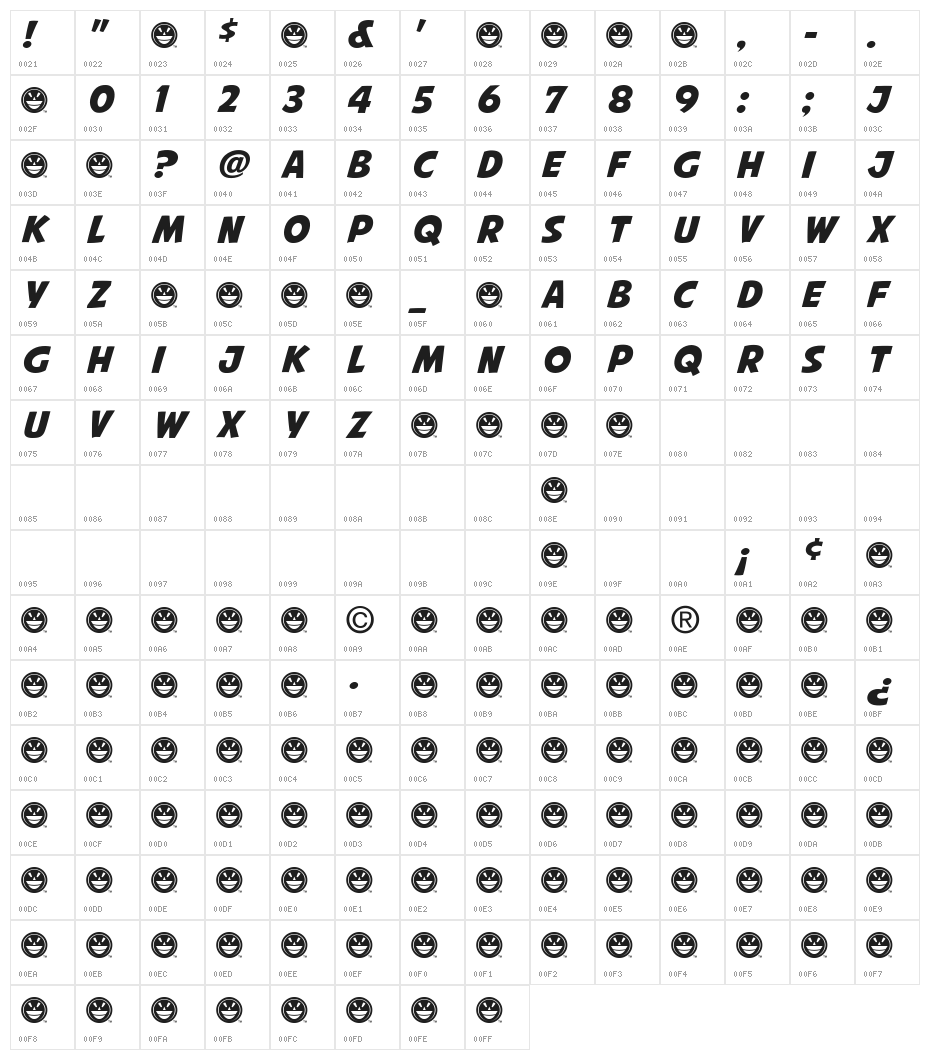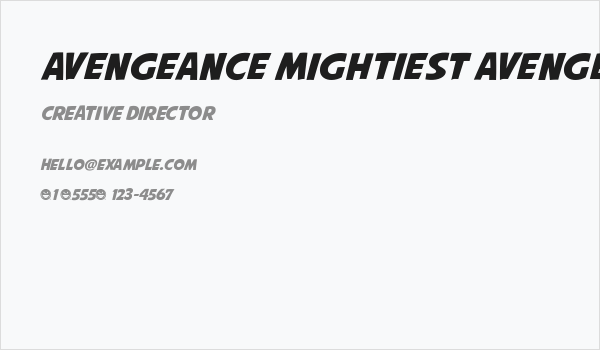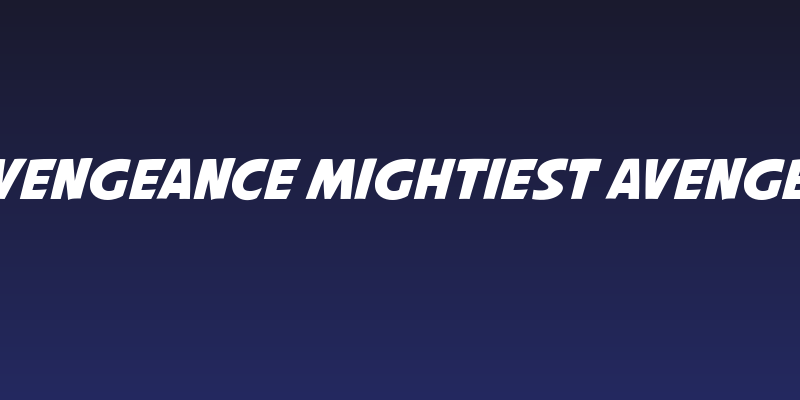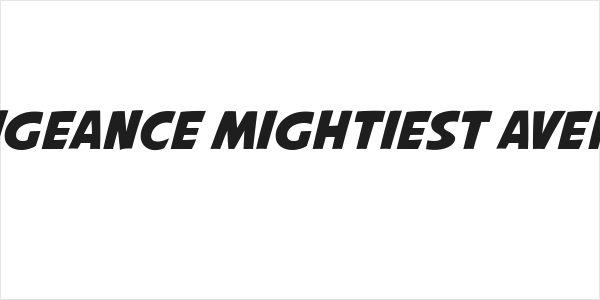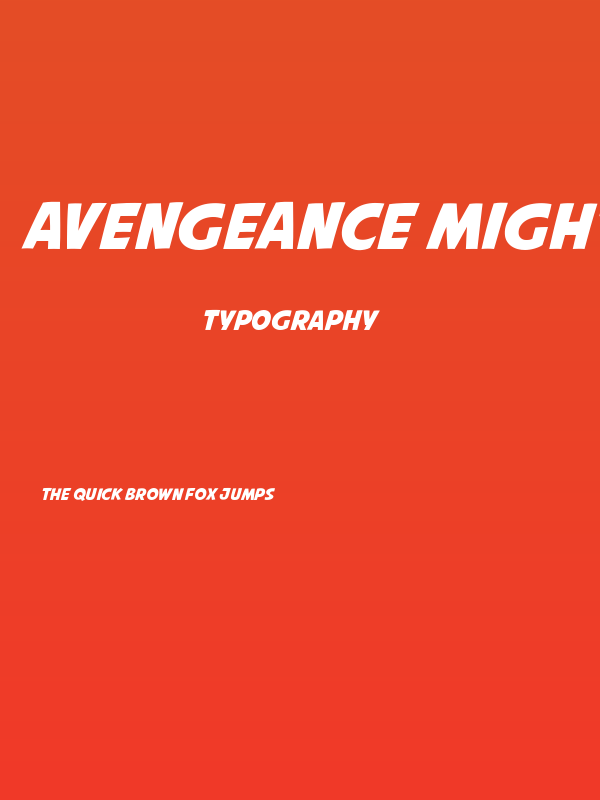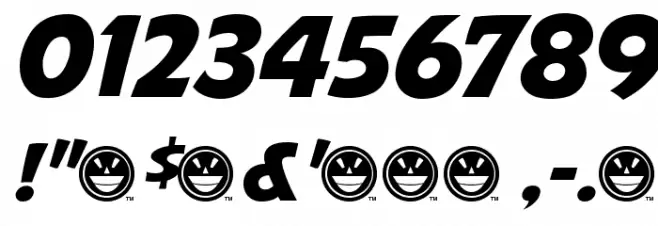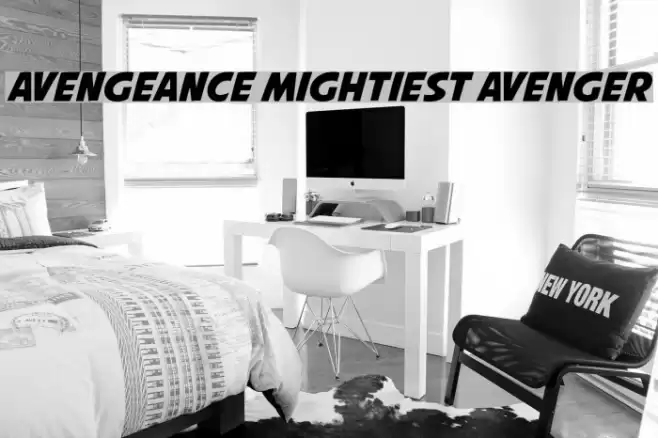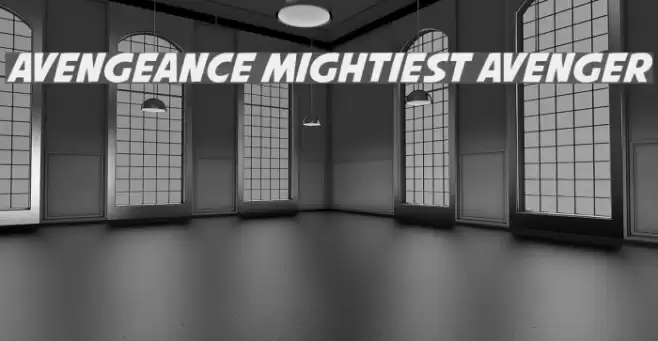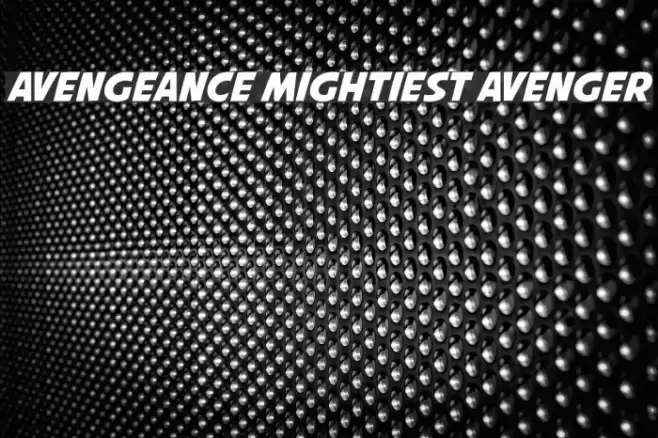
Avengeance Mightiest Avenger Font
Avengeance Mightiest Avenger Description
This font features bold, dynamic letterforms with a strong, impactful presence. The characters are slightly italicized, adding a sense of motion and energy. The strokes are thick and consistent, providing a robust and confident appearance. The uppercase and lowercase letters maintain a uniform style, with smooth curves and sharp angles that enhance readability. The numbers are equally bold, ensuring they stand out in any design. Special characters are included, maintaining the same bold and energetic style. Overall, this font exudes strength and modernity, making it ideal for projects that require a powerful visual impact.